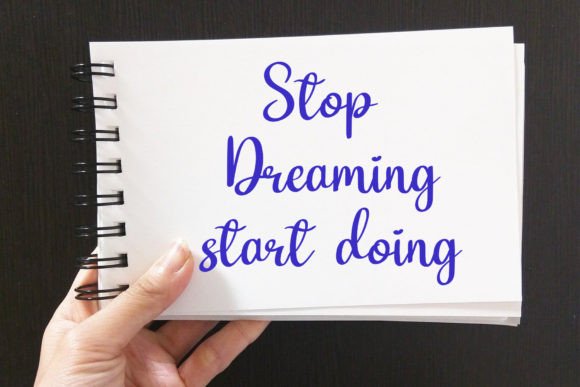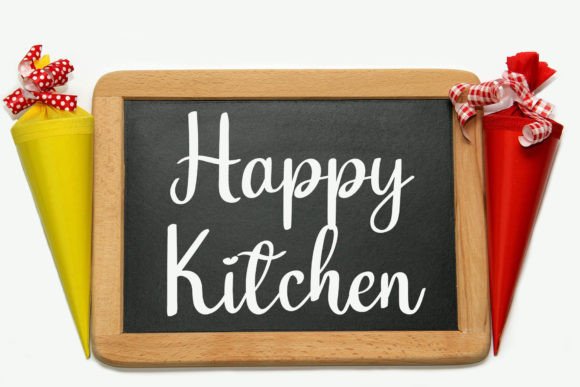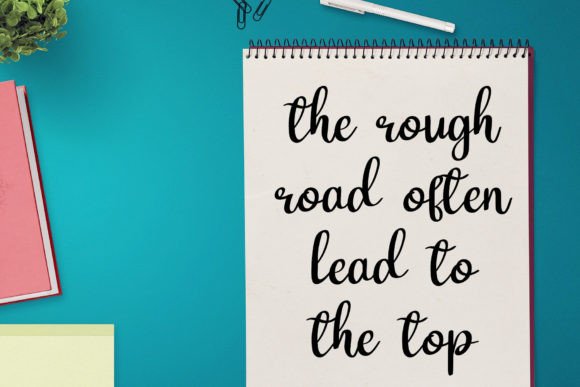
Birthday Font
Introducing Birthday, a one-of-a-kind, sophisticated typeface that instantly brings an added dash of grace to your creations. Its fluidity and elegance make it a perfect choice for wedding invites, greetings, billboards, logos or business cards, essentially any design that calls for a touch of personal handwriting. Skillfully crafted with an inconsistent baseline, the Birthday font encapsulates the warmth and authenticity of a handmade touch, giving your ideas a vibrant lifelike feel. The best part? Birthday is PUA encoded, providing seamless access to all glyphs and ornate swashes, making your design process a delight!